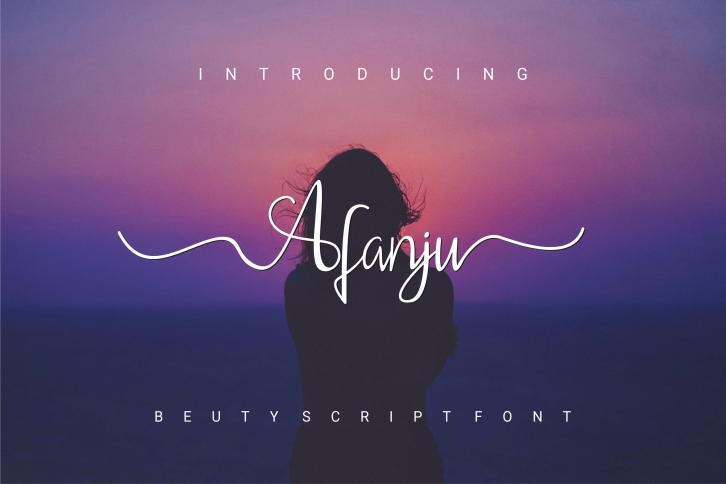
Afanju is an enchanting script font. This versatile font has a wide spectrum of applications ranging from greeting cards to headlines and is guaranteed to add a romantic feel to your next project.